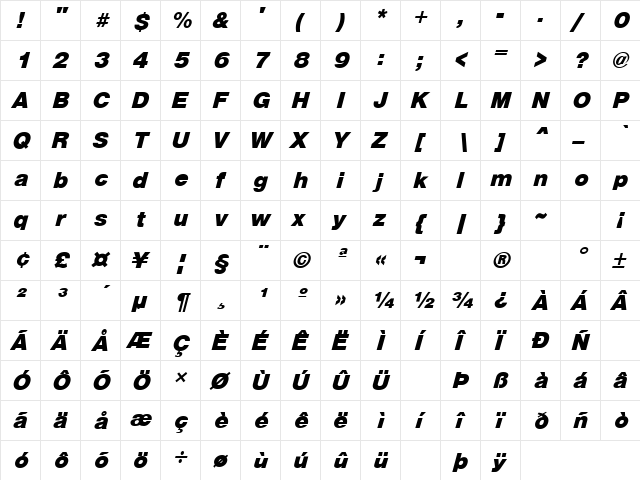
Communication 13 Regular Font Preview
Communication 13 Regular
Communication 13 Regular Font Details
Design Context for Communication 13 Typeface
Communication 13 takes a measured approach to typography — its balanced proportions and neutral character make it a reliable workhorse for both digital and print work.